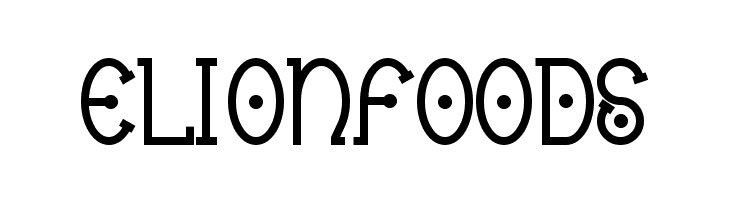
Lillyanstar Free Regular Font
- Font: Lillyanstar Free Regular
( Fonts by Ruben Prol - www.ipanemagrafica.com )
A decorative and whimsical font with intricate details and playful elements.